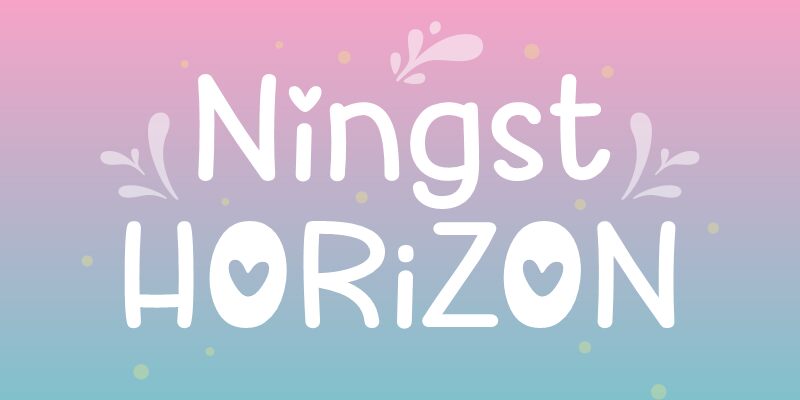
Introducing Ningst Horizon, a light and beautiful handwritten font designed by Nista Ningsih Nazara and Situjuh Nazara. Perfect for adding a unique, personal touch to your creative projects, this font is perfect for posters, greeting cards and more.